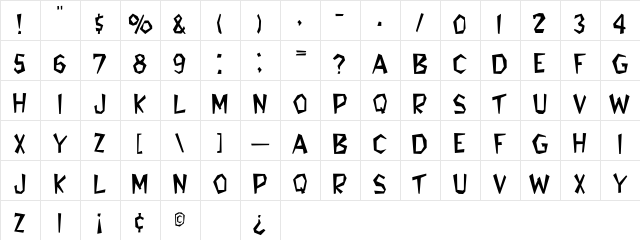
Bedrock-Light Regular Free Font
Bedrock-Light Regular
Bedrock-Light Family
Design Context for Bedrock-Light
Bedrock-Light is a composed and adaptable typeface that performs quietly and consistently across a wide range of design contexts. Its slender proportions lend an understated elegance to any composition.